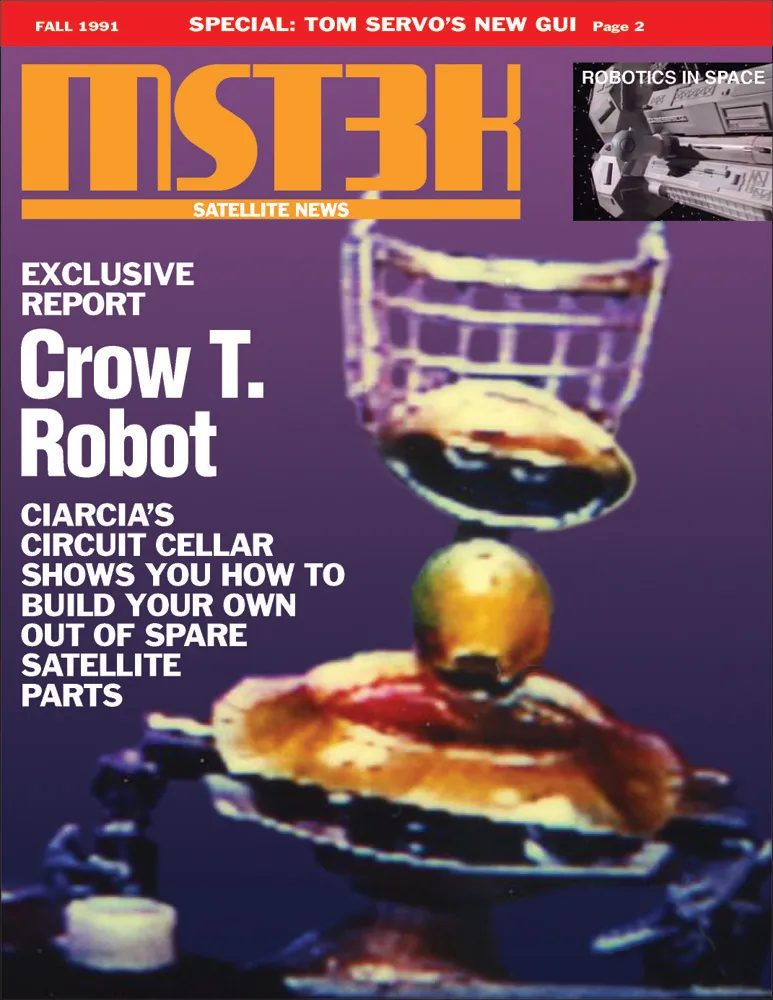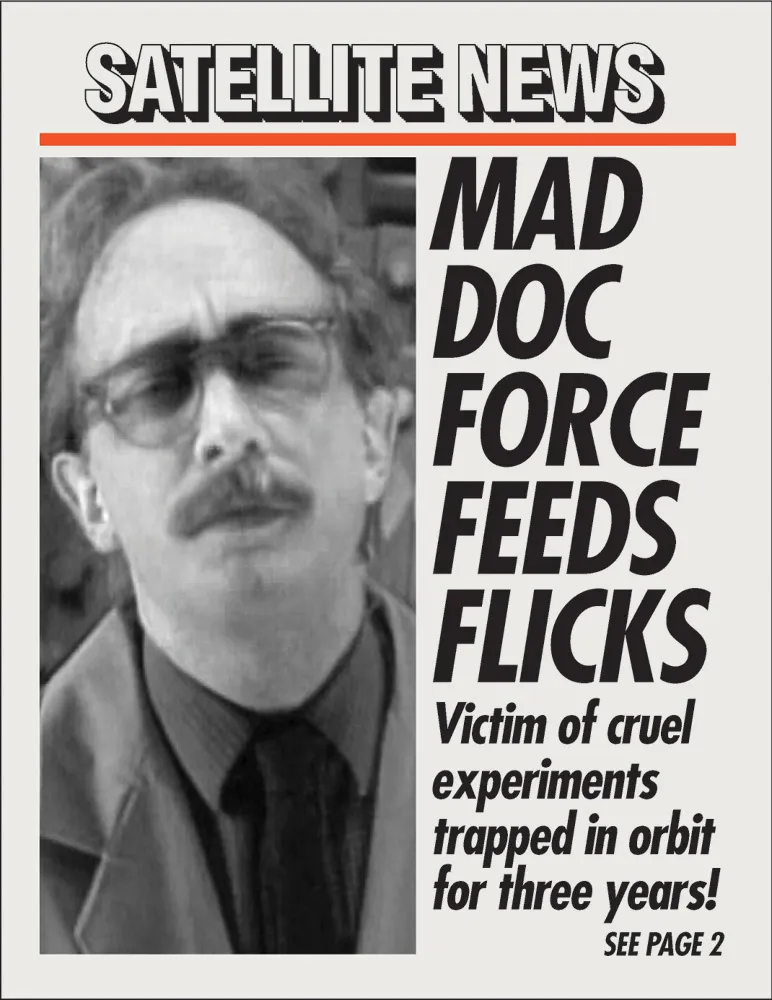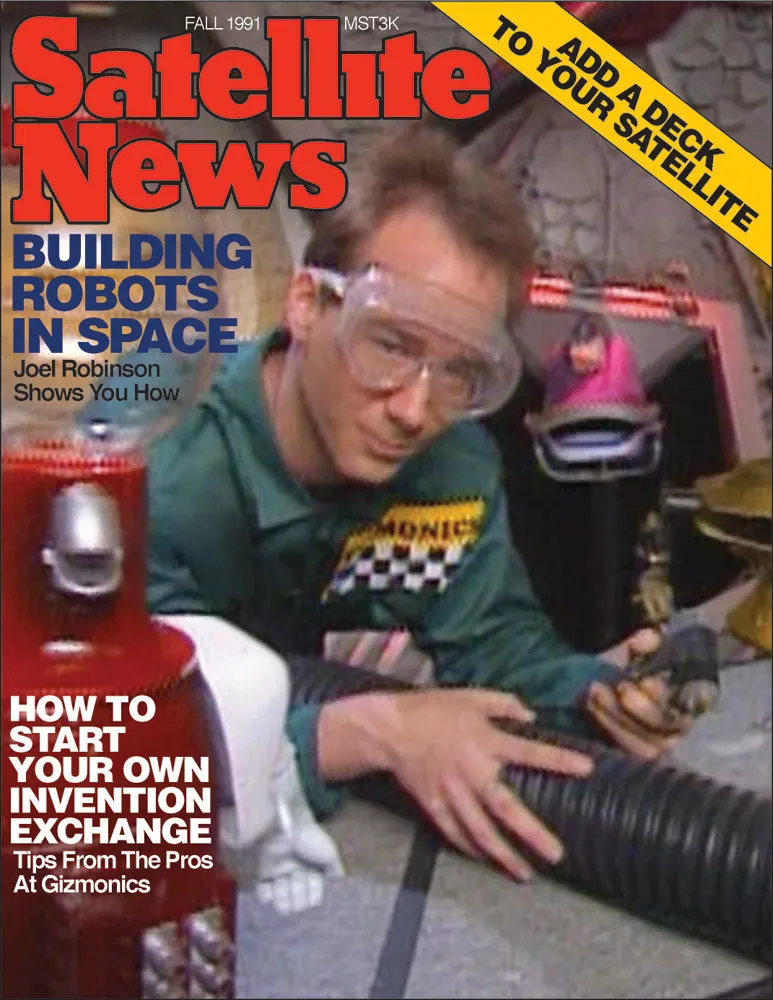
In yesterday’s installment, I got into the unseemly details of my close encounters with the cast of Mystery Science Theater 3000. This was nothing.
Best Brains, Inc. (BBI), the production company that made Mystery Science Theater 3000 (MST3K), was located in an industrial park in Eden Prairie, Minnesota, a fact that Pat and I confirmed (surreptitiously) one Sunday afternoon in 1991. (I will neither confirm or deny that we peered into the windows.)
As a graphic designer, I was appalled by the design of the official MST3K fan newsletter, Satellite News (Formerly The Binding Polymer). It was obviously not done by a professional designer. I decided to offer my services—for free, even—to take on design and production of the newsletter. Once they saw what I could do, it would be a slam-dunk. To demonstrate, with the help of a few tapes of the show, an SX-70 camera, an HP ScanJet, Photoshop and Illustrator, and a PostScript laser printer, I did a set of mock “redesigns” of the newsletter. I sent them, along with a cover letter, to Best Brains at the end of October, 1991.
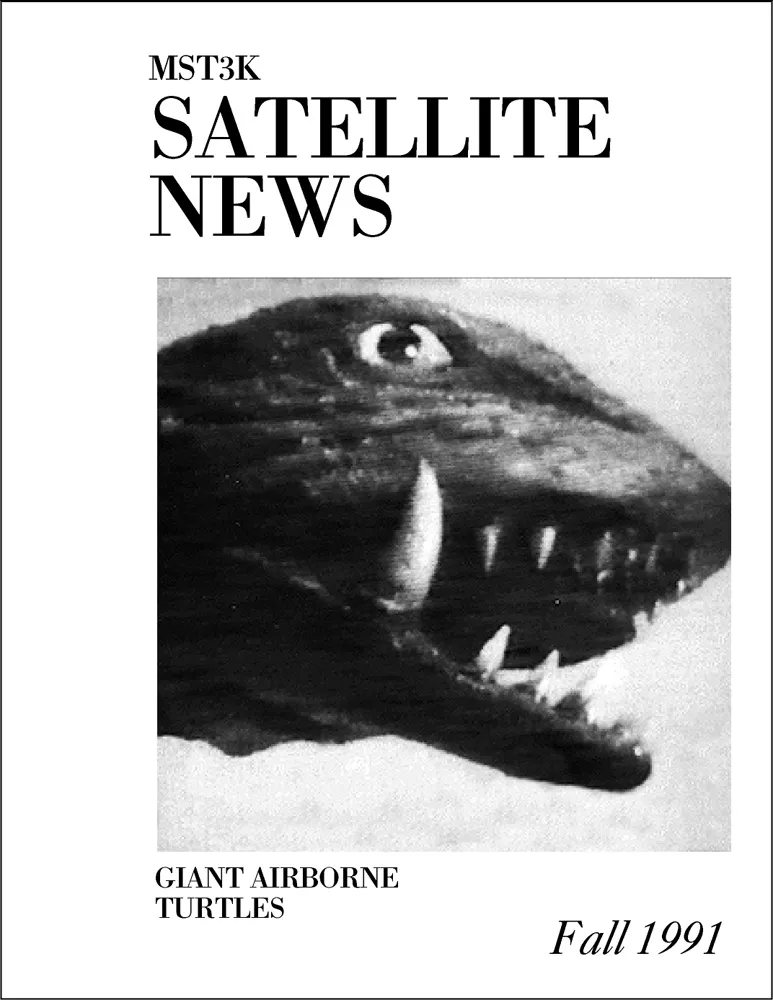
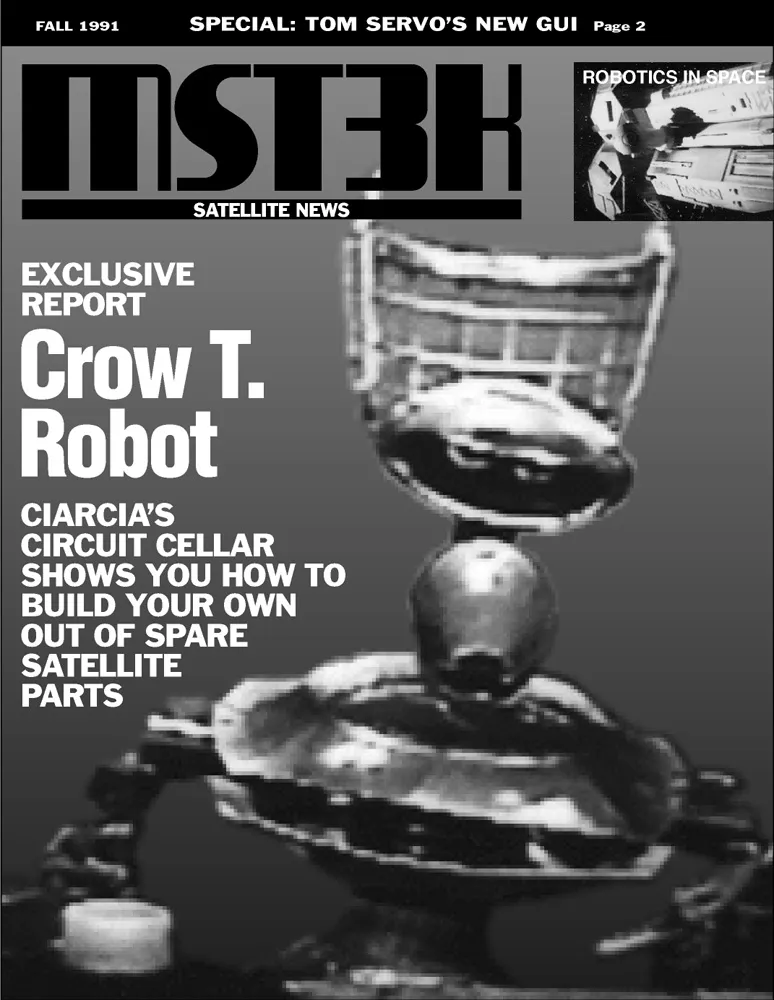
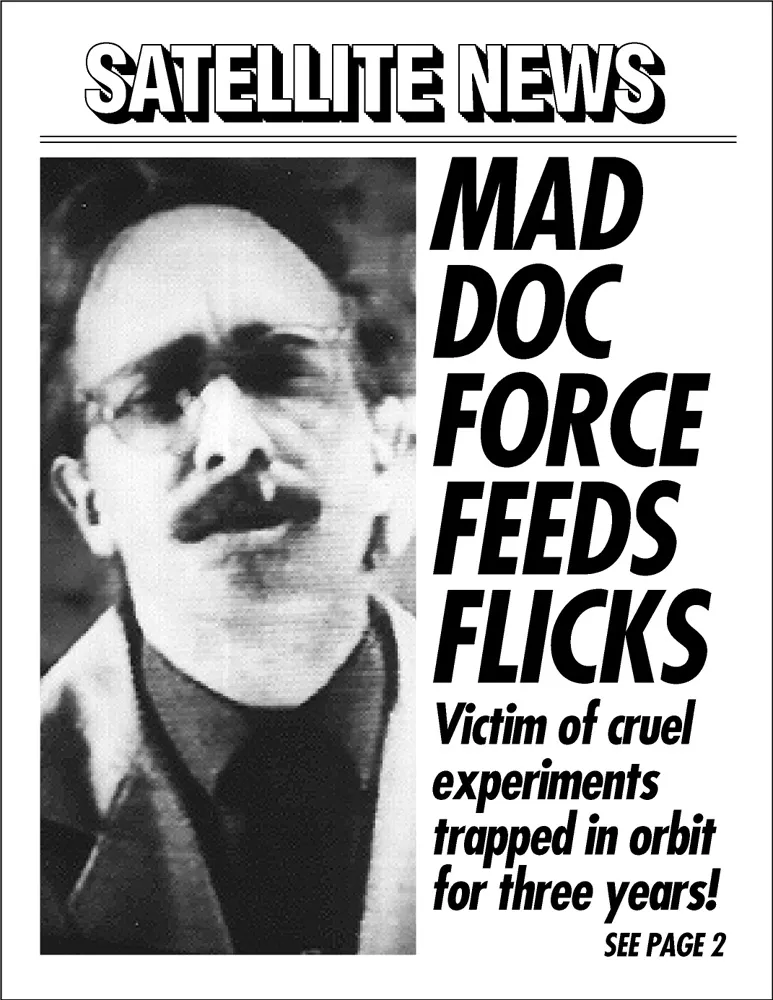
My mock “redesigns” of MST’s fan newsletter, Satellite News (Formerly The Binding Polymer), left to right, top to bottom: The original, as Business Week, as Scientific American, as Popular Science, as Popular Mechanics, as Byte, as Vanity Fair, as Utne Reader, and as The New York Post.
A day or so later, the phone rang. It was Jim Mallon, producer of MST3K! He wasn’t interested in me doing the newsletter, especially for free—that would taking advantage of me. But he loved the “redesigns” and they might have some work for me. He invited me down to the Best Brains offices to talk. I was very excited. Pat was very jealous.
The next day, I showed up at BBI, along with some samples of my work. There must have been some sort of mix up because I had to wait almost an hour. People kept coming up to me to ask if I had an appointment. While I was waiting, I could hear someone editing promo spots for the first of their yearly “Turkey Day” marathons.
At last, Jim Mallon appeared and started off by giving me a tour of the facilities. Along the way, I got to meet most of the people who worked on the show—Frank Conniff, Mike Nelson (who was head writer at the time), Trace Beaulieu, Kevin Murphy, tool master Jeff Maynard (the guy who made the props), Mary Jo Pehl, and Paul Chaplin. Joel Hodgson was out, and I had the impression that he wasn’t often in.
Among the things I saw on the tour:
- The writing room, which had big comfy couches and chairs, a small table with a Mac SE for transcribing ad libs, and a big-screen TV (not very big by modern standards, though).
- Writers’ offices—I remember Trace had the puppets from the KTMA incarnation of the show in his.
- The workshop, where all the props and stuff were made. Among the things I saw in the workshop was the big “Mystery Science Theater 3000” planet seen in the opening credits, which is about three feet tall, and was originally a prop from the Guthrie Theater, repurposed with a bit of hot glue and styrofoam. Also, multiple “trick” Tom Servo and Crow T. Robot puppets made for special effects, like when they needed Tom Servo’s head to blow up or something.
- The main production studio, a large warehouse-like room with the Satellite of Love “command deck” set on one end, and the “Deep 13” set off to one side. The “theater” area was opposite the S.O.L. set and consisted of the theater seat silhouettes (big cut-outs made of plywood) set in front of a large “green screen”. The performers would actually be watching the movie on a small TV monitor out of sight from the home audience. The S.O.L. set was actually raised up about three feet to make room for the performers who worked with puppets.
After the tour, I met with Jim, Trace, and Kevin, showing them some of my work. It seemed to go okay. They told me they were working on some tapes to sell to fans, the first of which was a collection of musical skits from the show called, “Play MST for Me.” I was suddenly in some sort of brainstorming session, and they kept looking at me, maybe hoping for me to be as funny as them. I felt a little ambushed. They were the funny guys. I was a designer. Given the situation, I saw myself (potentially) as what Michael Gross was to the National Lampoon. He never claimed to be a “funny” guy, but he knew how to use design to serve “funny”. In any case, I agreed to come up with some concepts, and I left feeling like I was starting a new page in my career.
When I got home, Kevin Murphy faxed me the copy for the package and I earnestly went to work, arriving at my first concept: Fairly straightforward type with a very long “funny” disclaimer, which I wrote. I faxed it over and waited. This didn’t go over very well—they weren’t expecting me to write copy. I considered what I wrote to be “dummy” text—that they would rewrite it. That didn’t matter, they didn’t like it.
I did a second concept: A parody of a cheesy, sentimental, as-seen-on-TV kind of shlocky record album cover—complete with swash headline type for the title. They didn’t like this one either. It was a design joke and I guess they didn’t get it.
I did a third concept: A record on a turntable, seen from above, with the letters of the title flying off the disc as it spins, a sort of slapstick approach. This one didn’t seem to grab them either, but I don’t remember why.